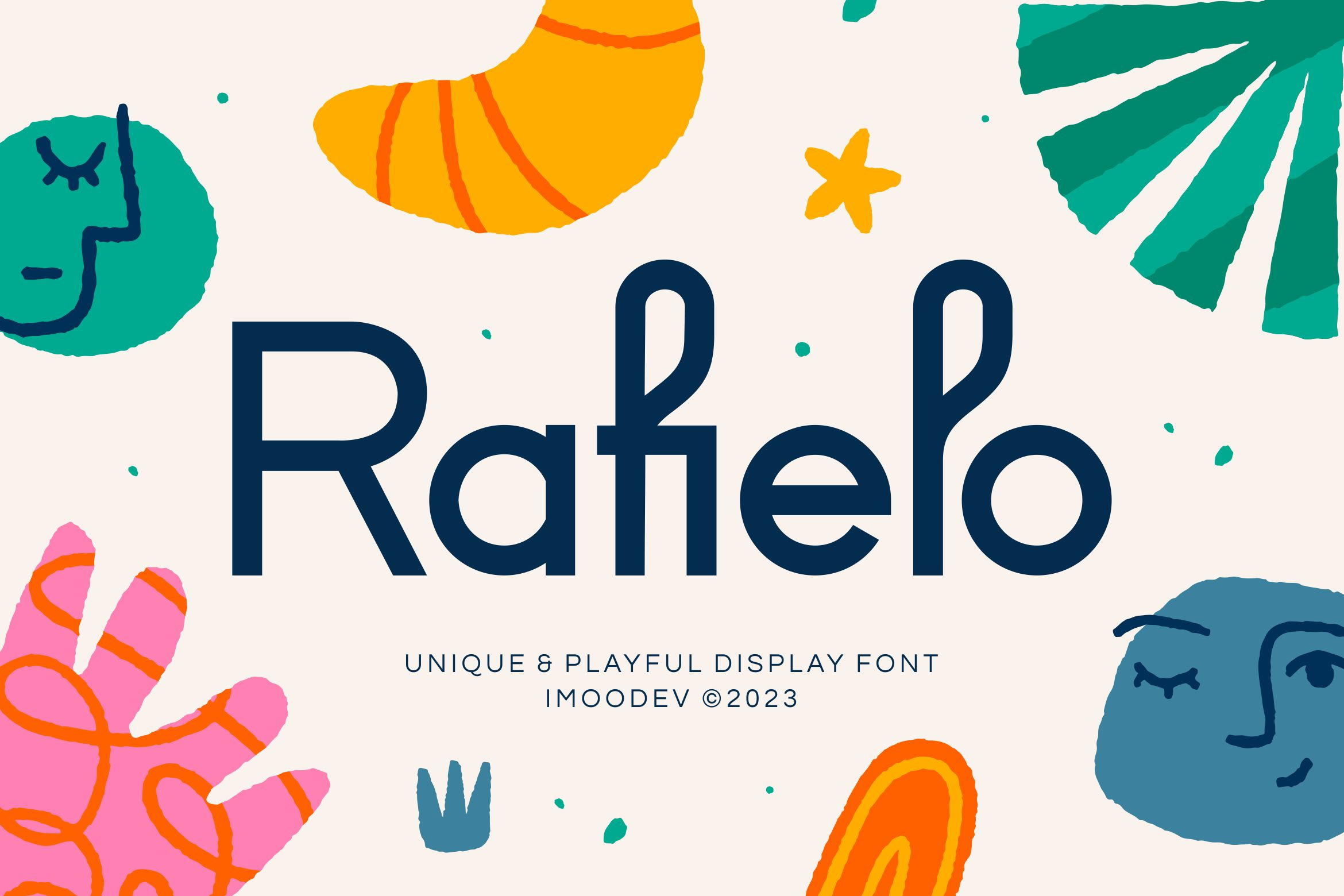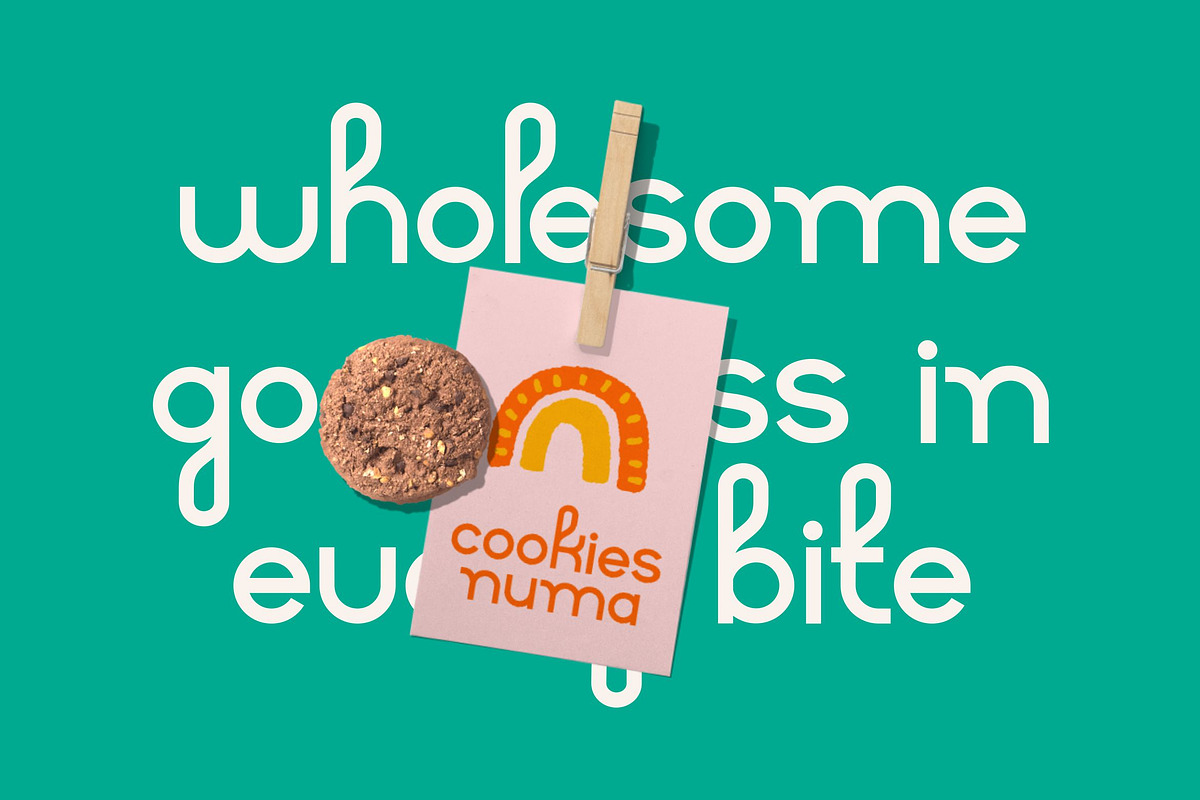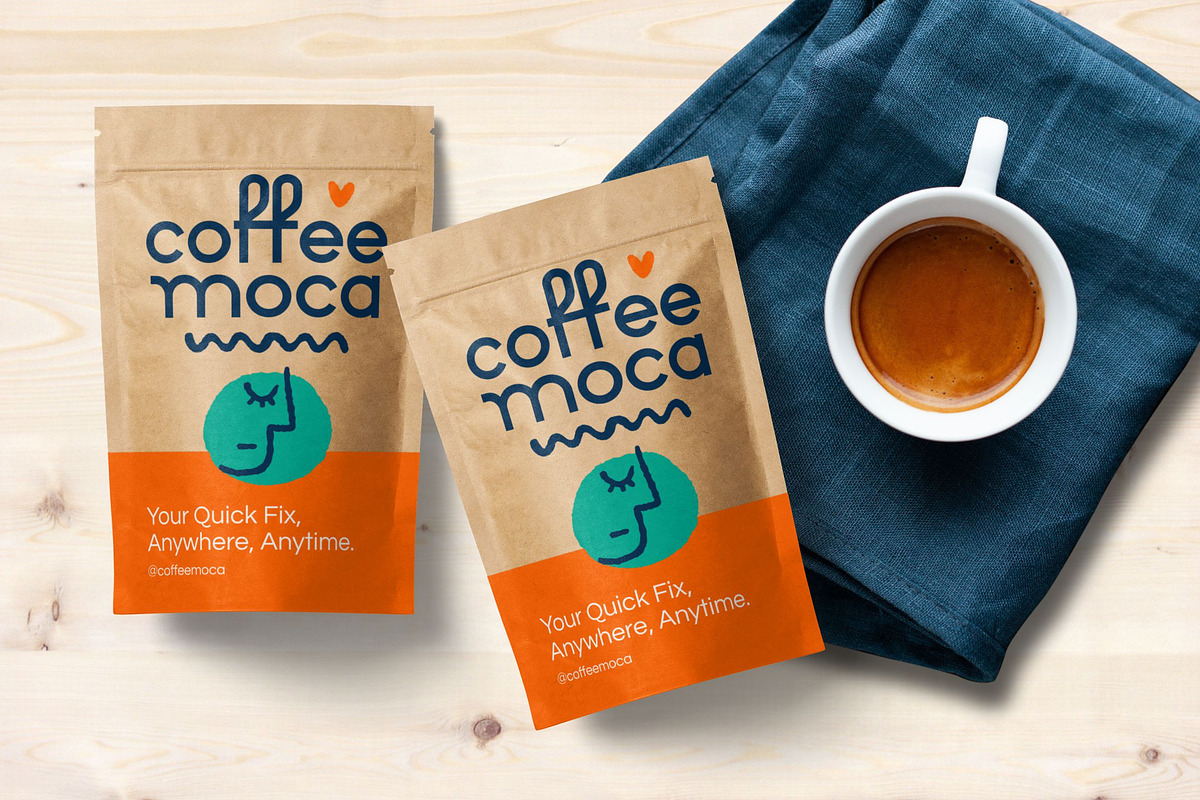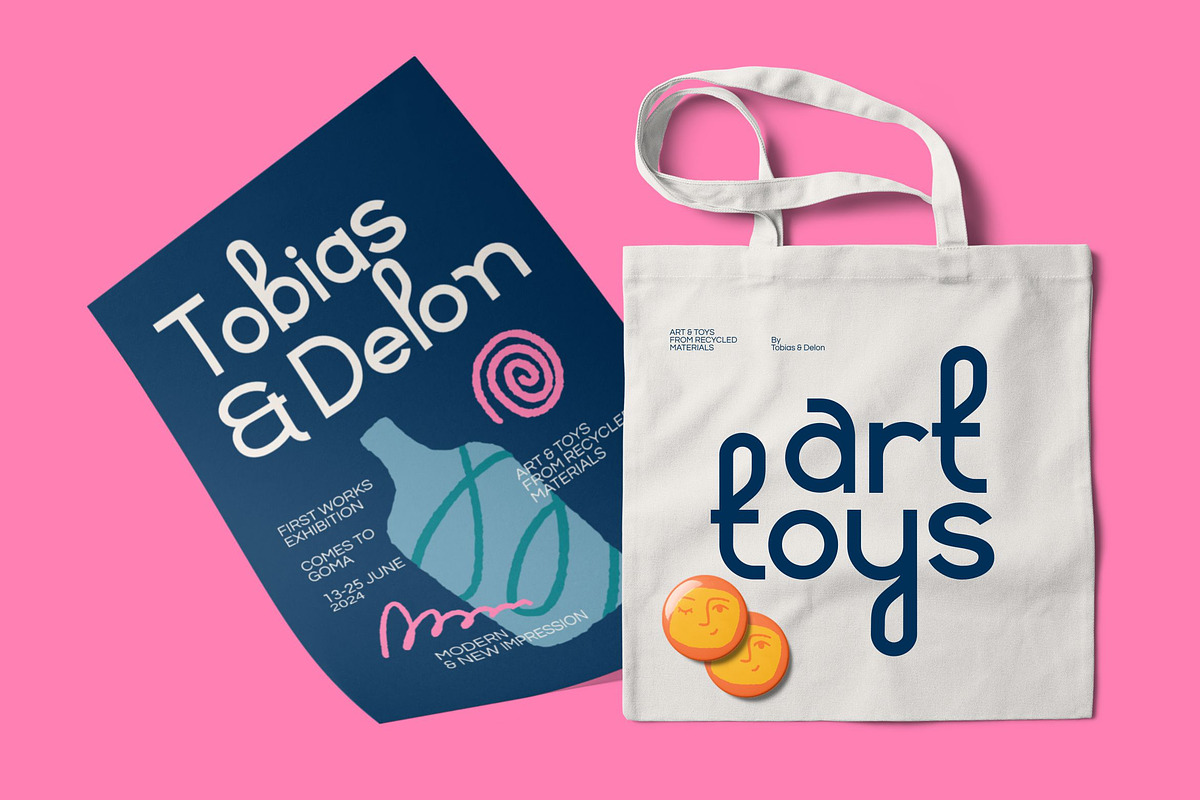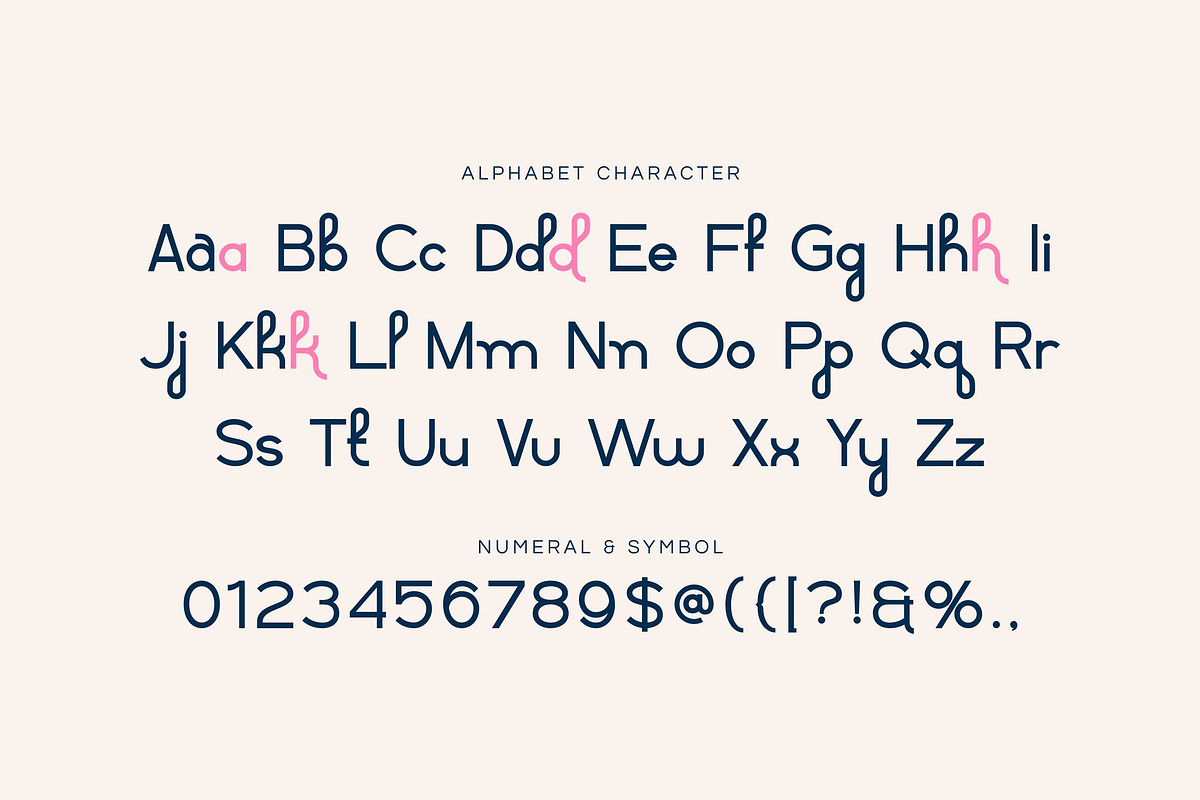
Rafielo - Cute Modern Display Font
Rafielo is a cute modern display font. It blends geometric structure with playful, flourishes—most notably in the tall, loopy ascenders on letters like f, h, k, and l, which give it a sense of whimsy without losing legibility.
Perfect for branding, packaging, food packaging, indie children's books, headline, poster, logo, sticker, other branding.